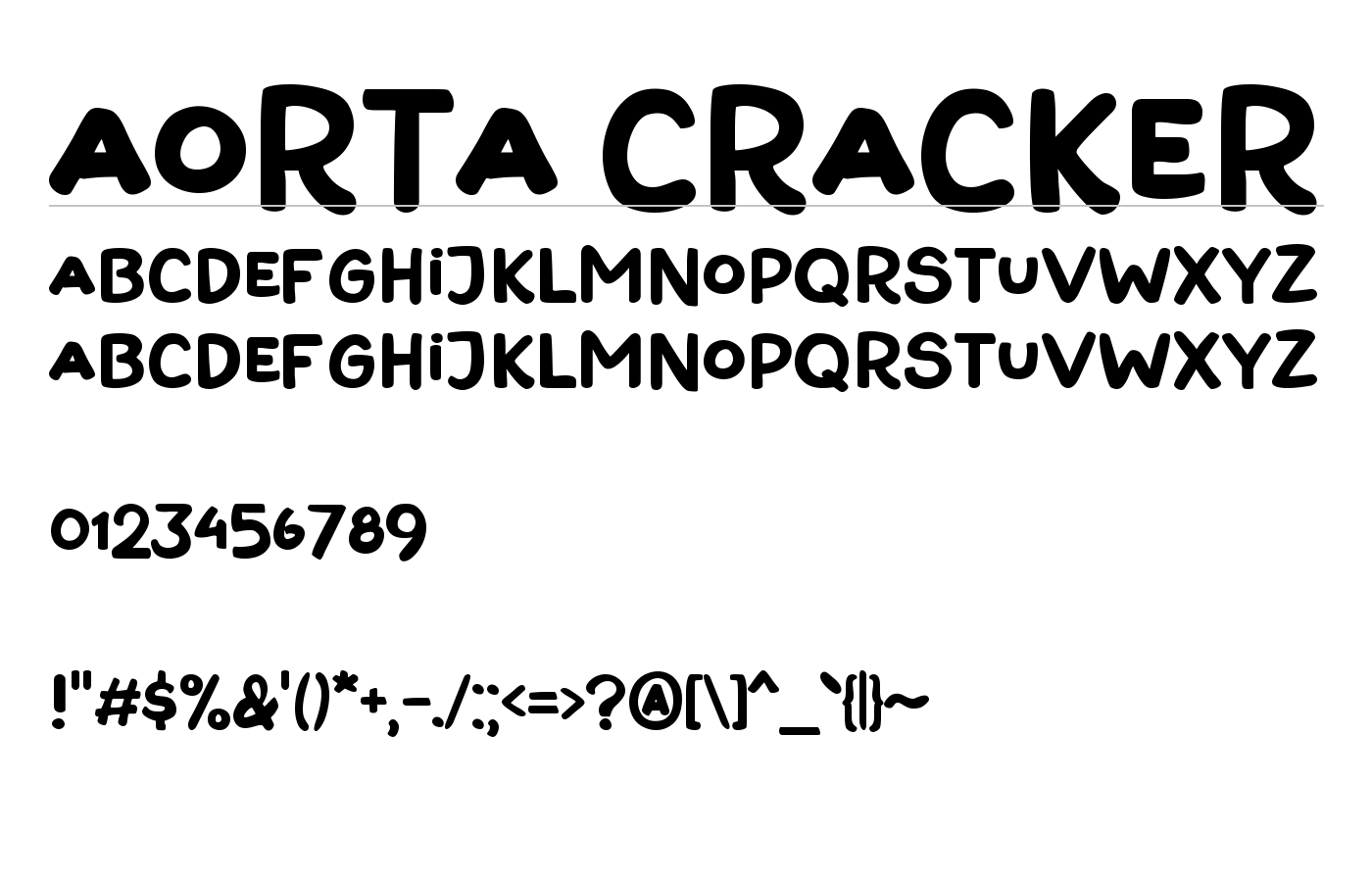
Aorta Cracker is a playful, chunky sans serif font with bold, rounded letterforms that give it a friendly and approachable feel. Its casual, hand-drawn style makes it perfect for fun, informal designs such as children’s books, posters, and creative branding where a lively, energetic vibe is desired. This font works well in headlines and display text, adding personality and charm without sacrificing readability.
Aorta Cracker Font
About Aorta Cracker Font
| Font family | Aorta Cracker Font |
| Designer | Masa Aska Sanurumi |